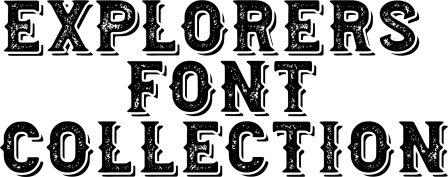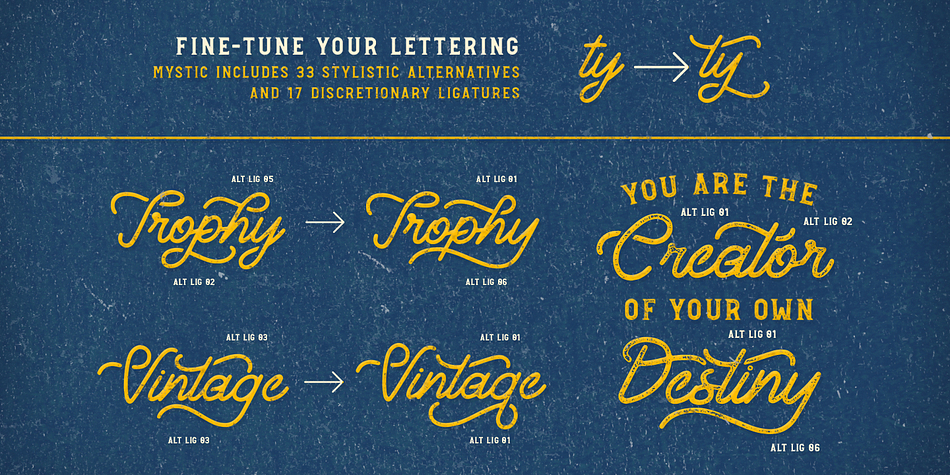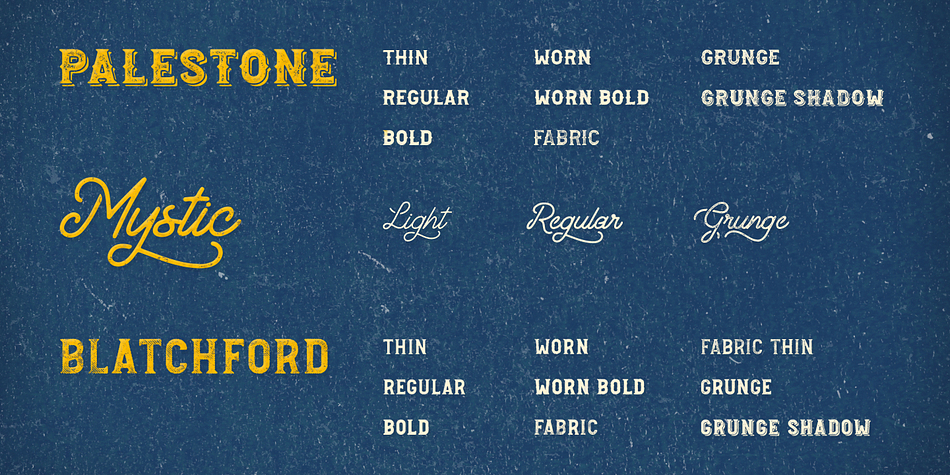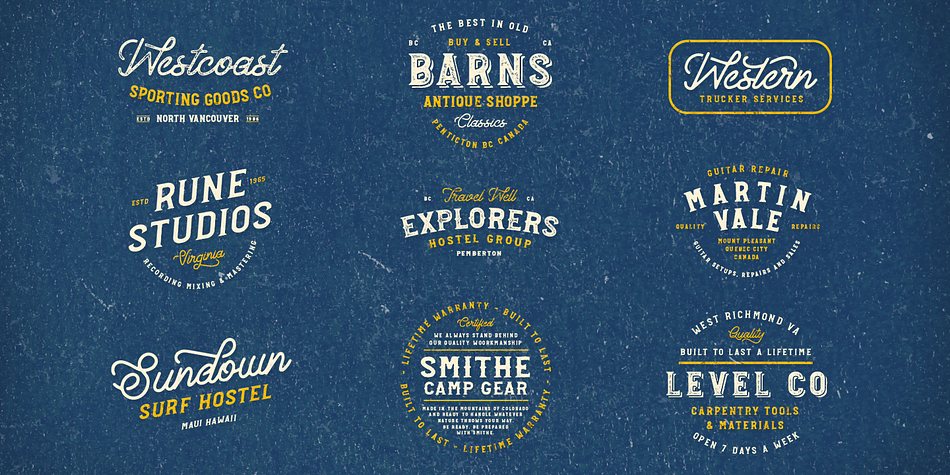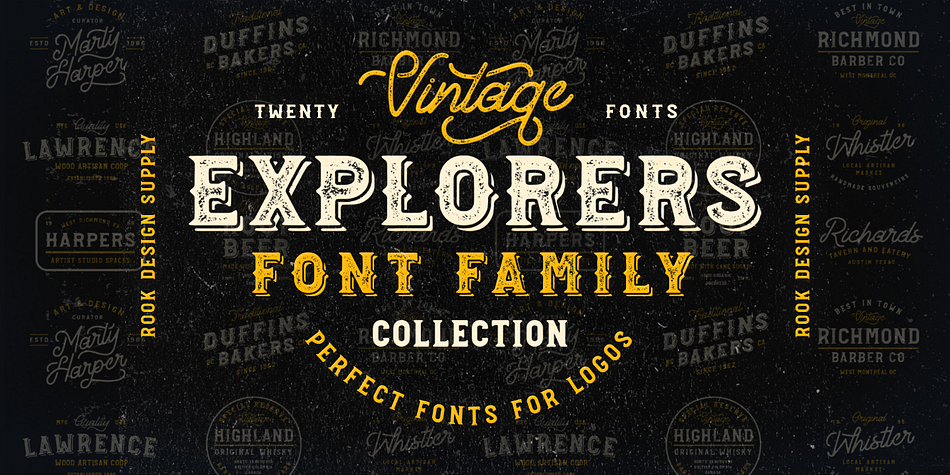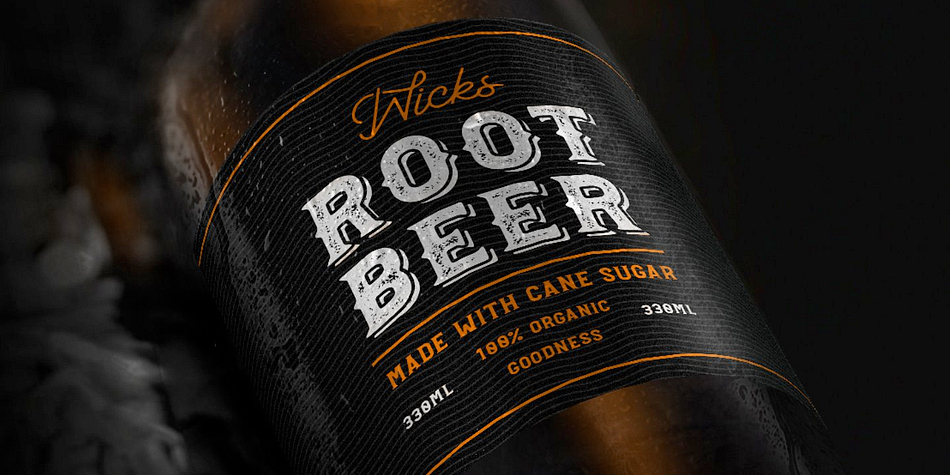
Designed by Greg Nicholls, Explorers Font Collection is a multiple classification font family. This typeface has twenty styles and was published by Rook Design Supply.
Are you looking for the perfect logo or branding for your business? Check out this collection of twenty fonts from free font families. Use these fonts on a variety of projects for your business. This package is perfect for social media posts (Instagram and Facebook), branding, logos, advertisements, you name it! Each font family comes with a grunge version, so that you can add vintage / retro effects to your branding for that extra old school charm.